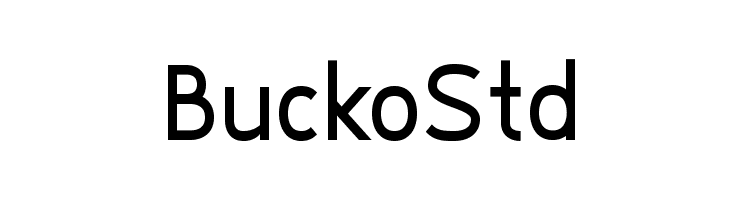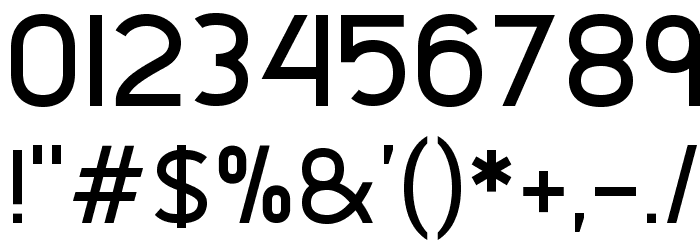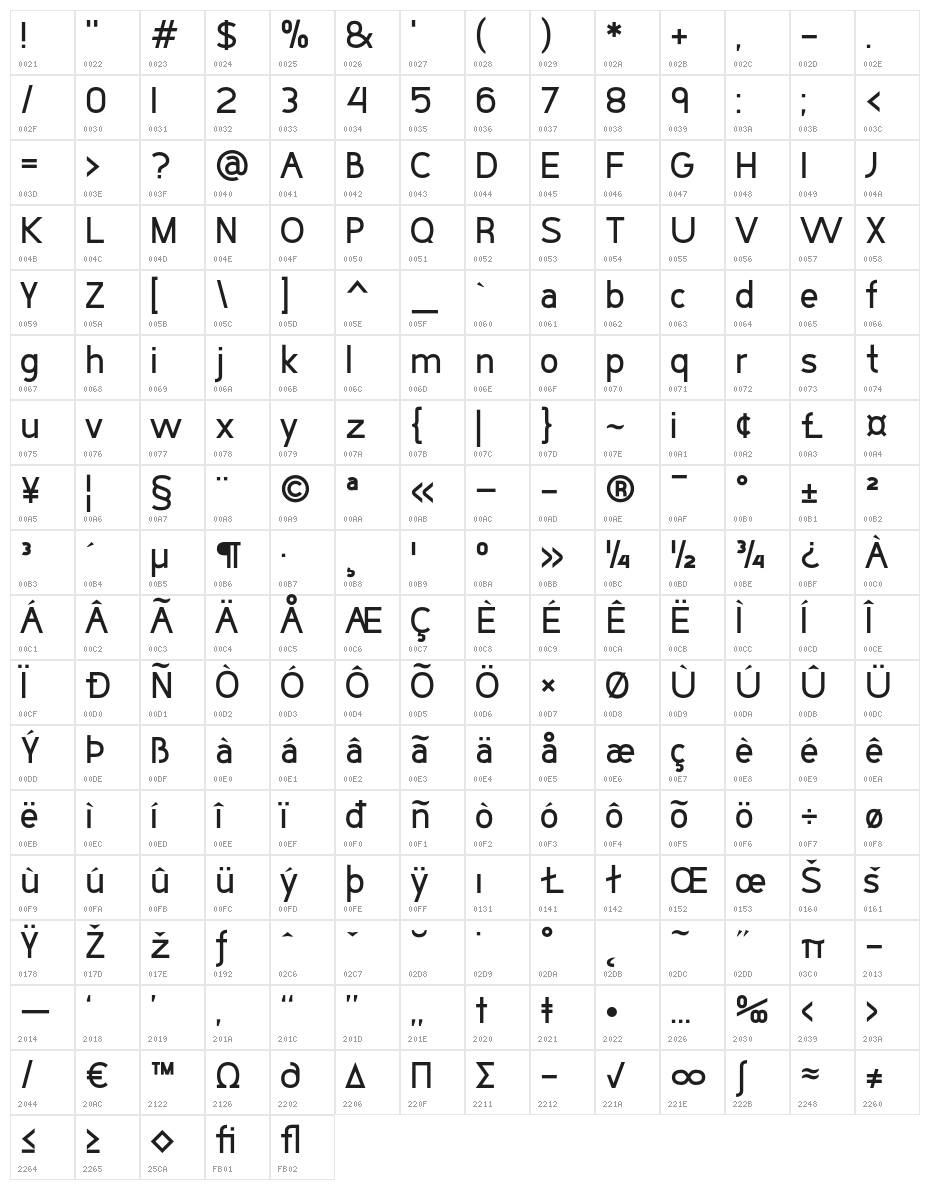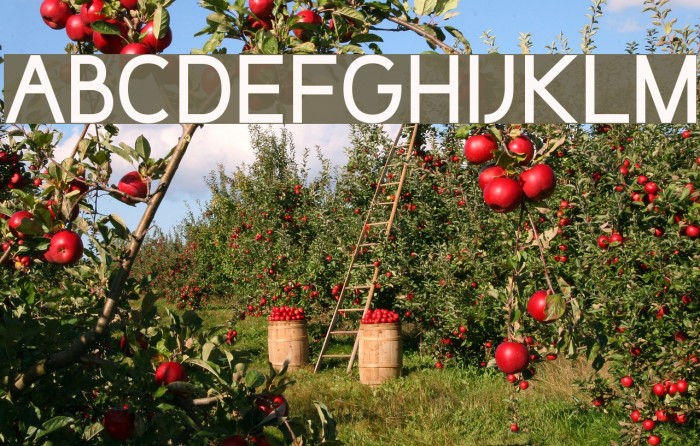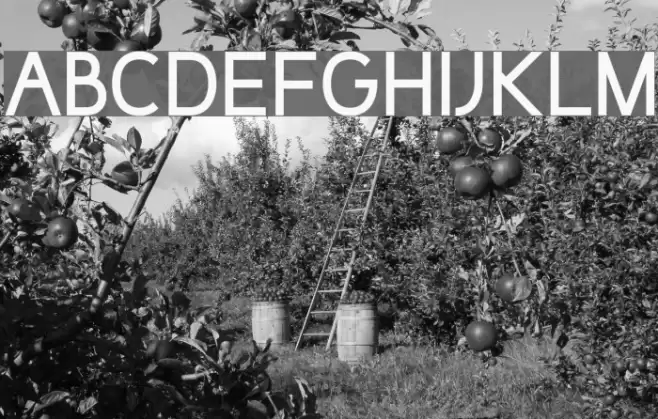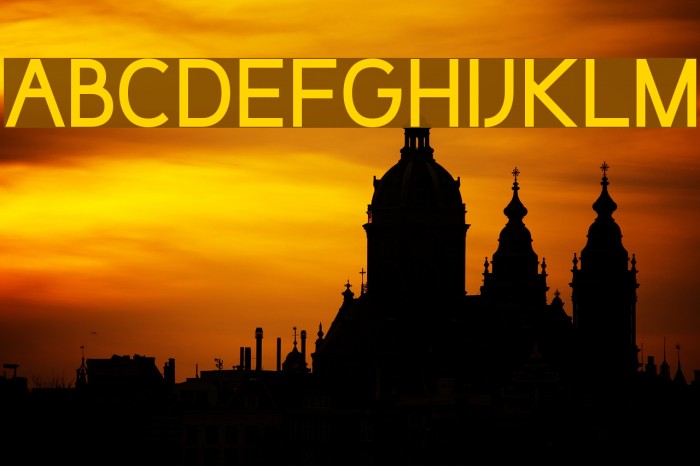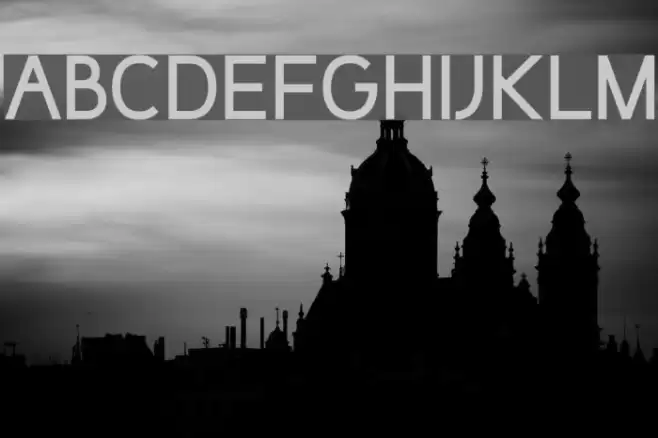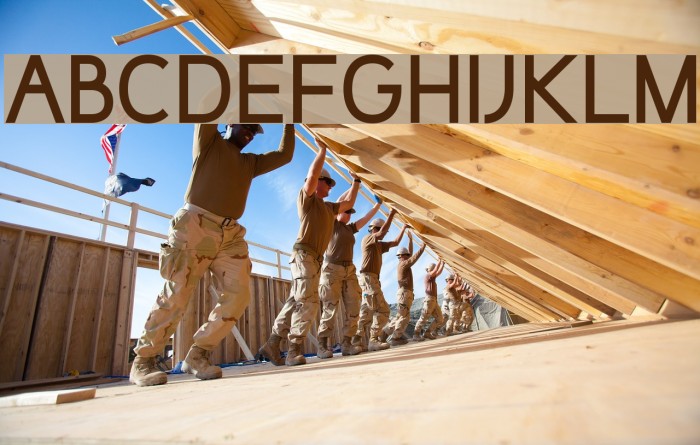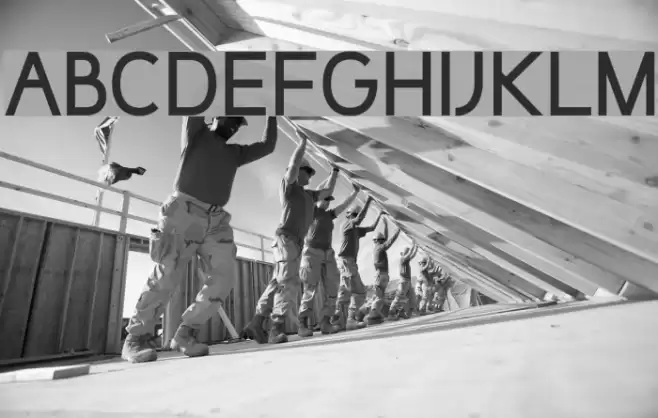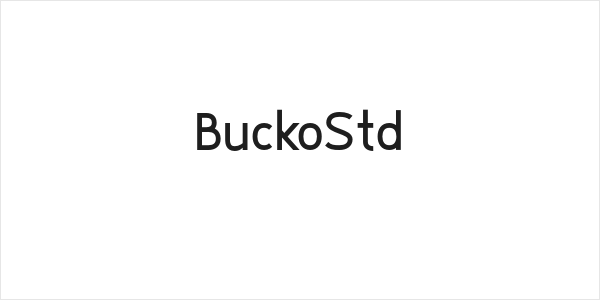
BuckoStd Font
BuckoStd Description
This font features a clean and modern sans-serif style with a geometric structure. The characters are well-balanced, offering a harmonious appearance that is both professional and approachable. The uppercase letters are bold and assertive, while the lowercase letters maintain a friendly and open feel. The numerals are clear and easy to read, making them suitable for various applications. Special characters are designed with precision, ensuring consistency across the entire typeface. This font is versatile, suitable for both digital and print media, and can be used effectively in a wide range of design projects.
| Proposed Projects | Ideal for branding, web design, advertising, and editorial projects. |